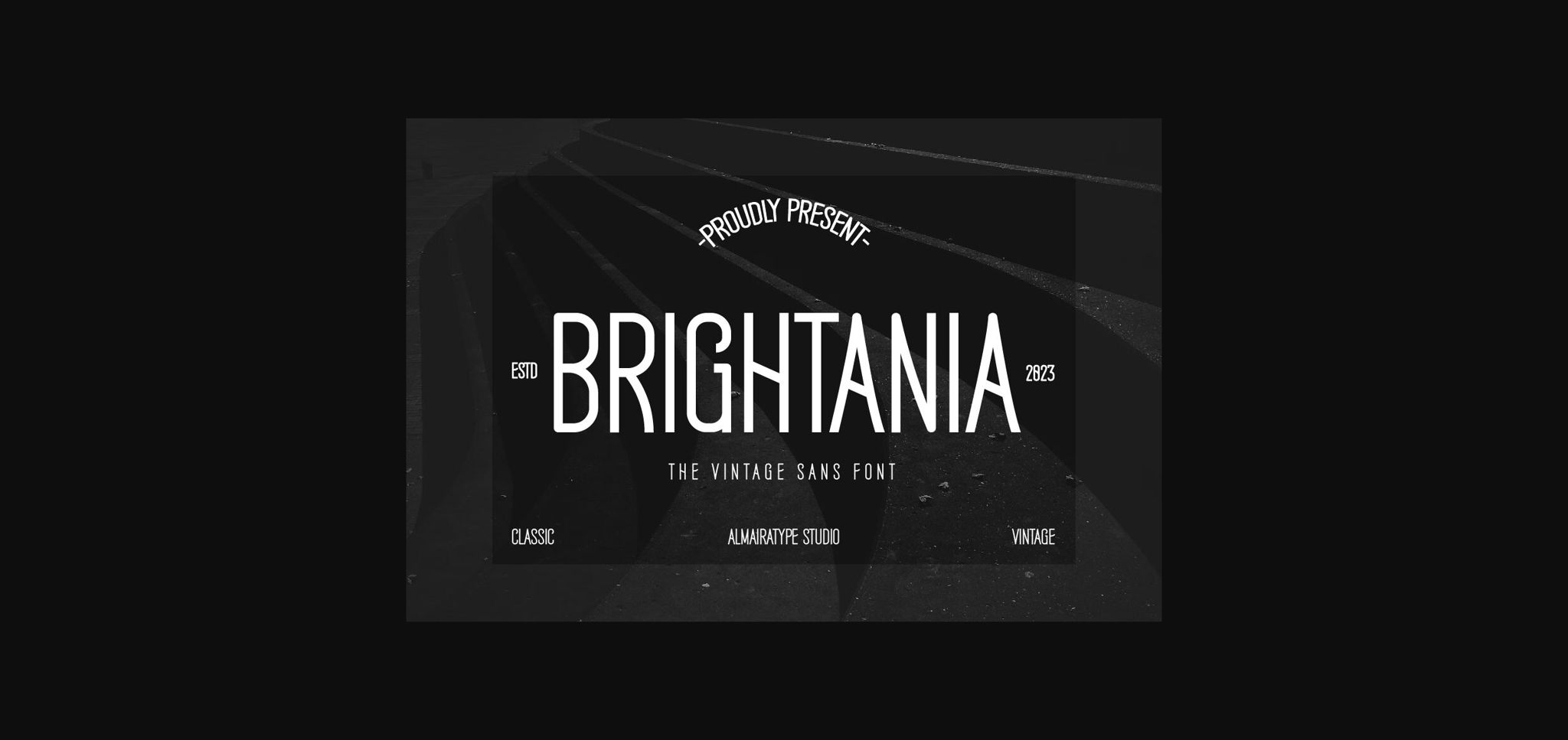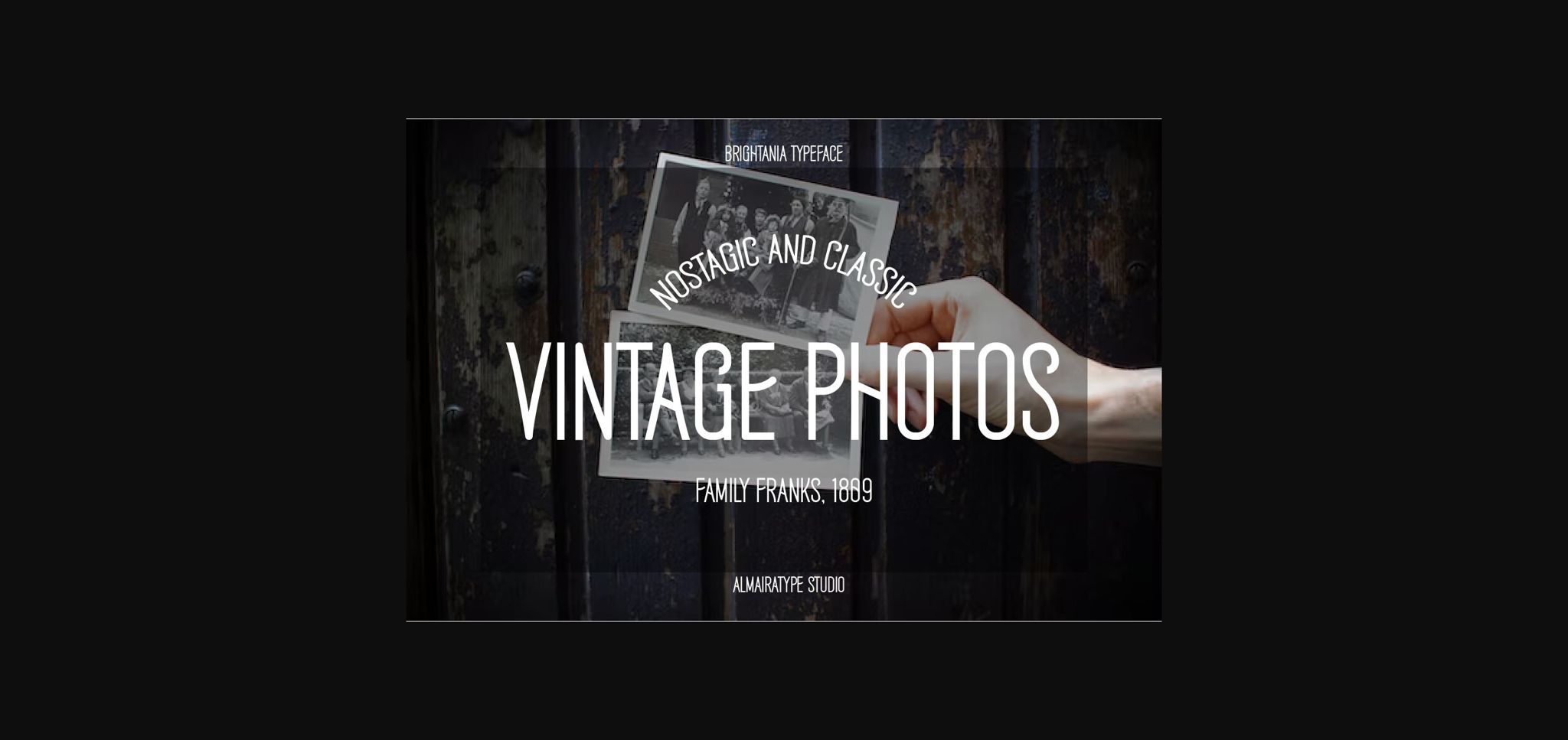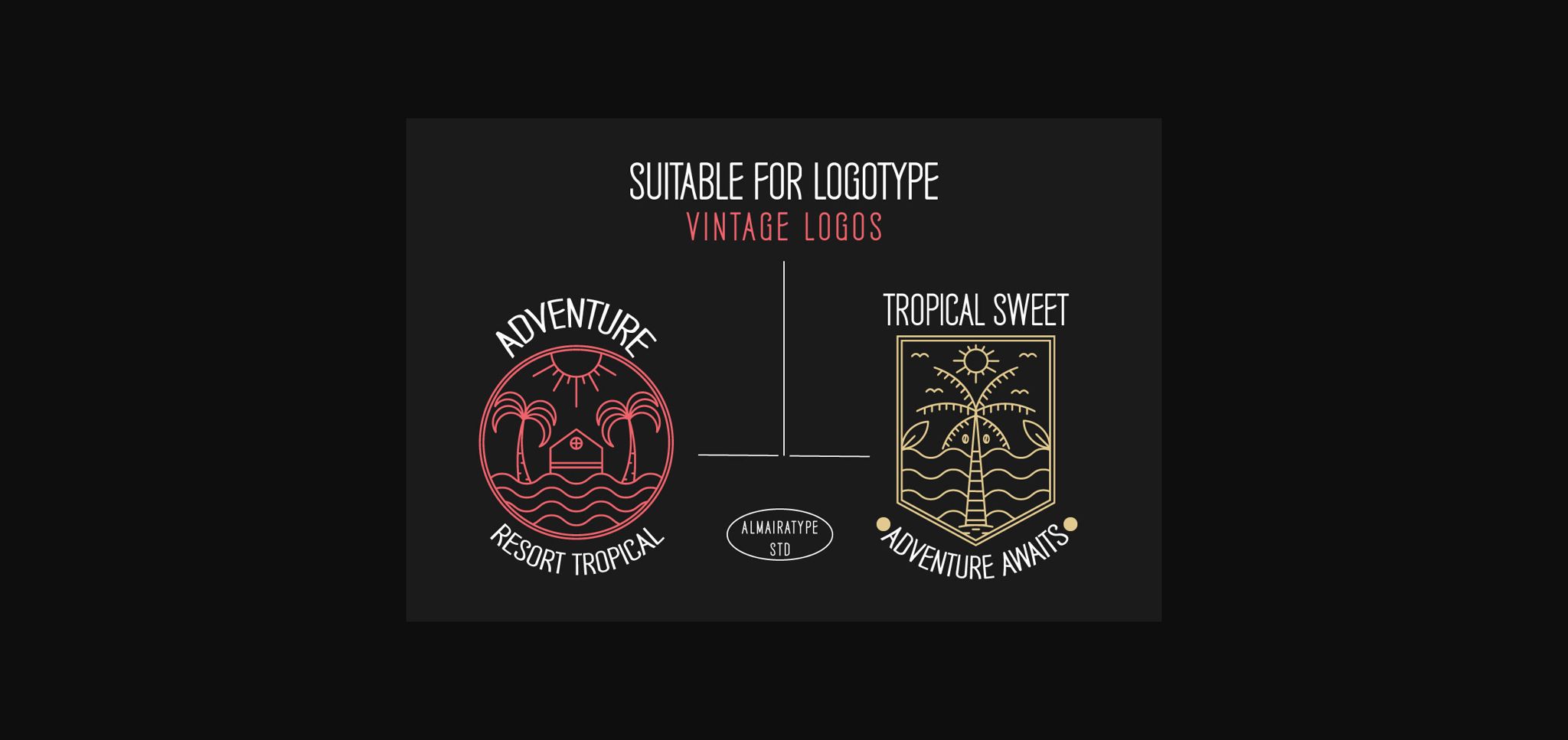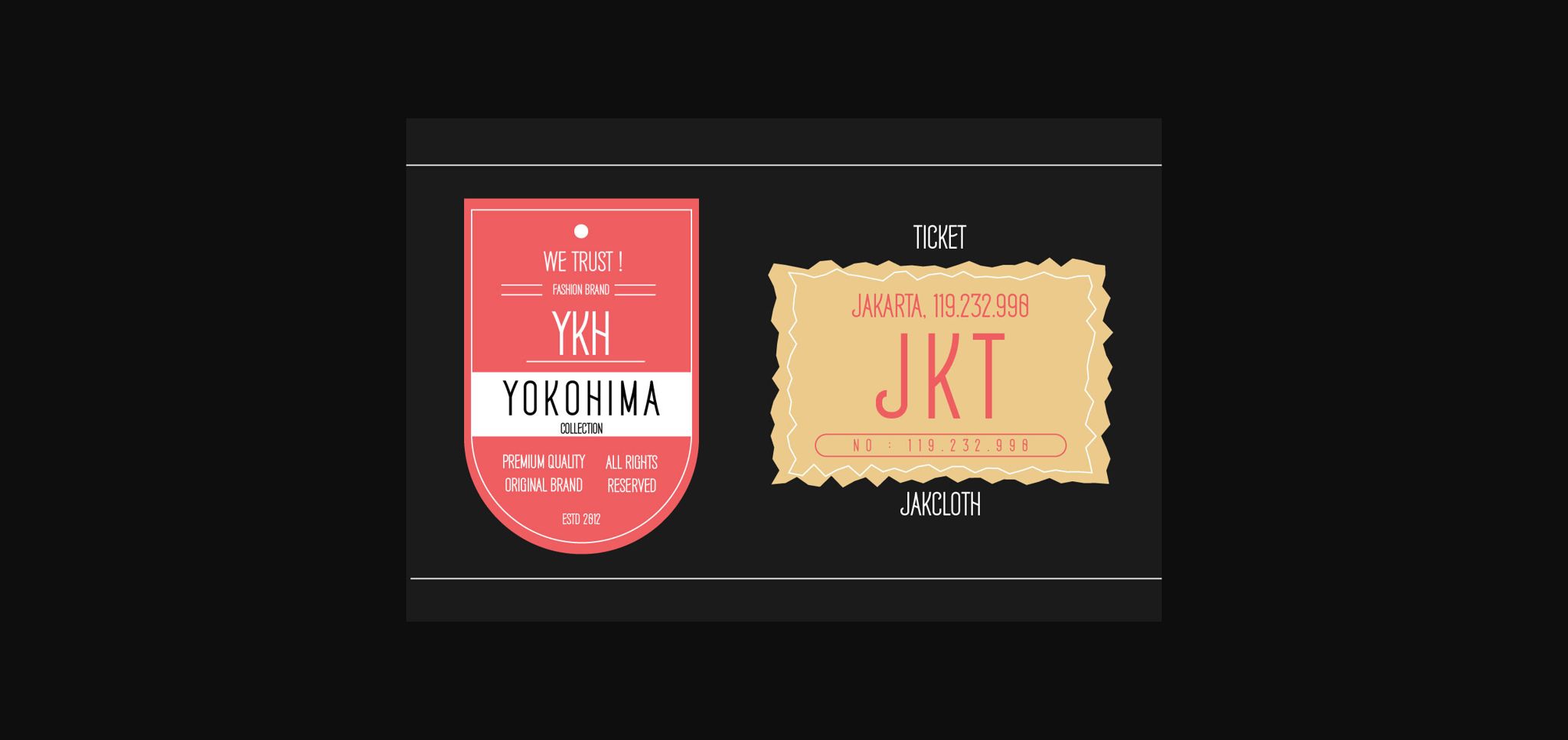
Brightania Font
About Brightania Font
Brightania is a sans serif font with a vintage style but still has a cool modern touch. This font is suitable for crafts, headlines, branding, business, print, t-shirts, apparel, Cricut, silhouettes and other creative ideas!